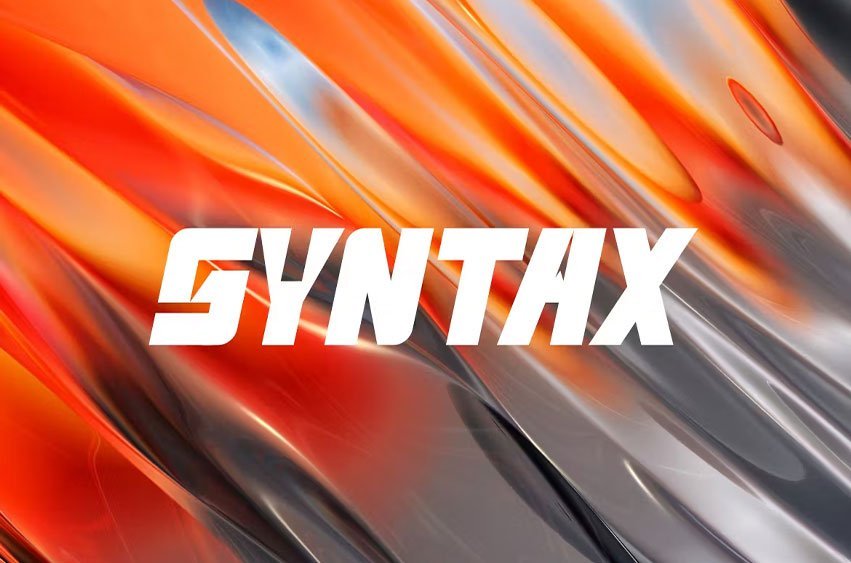
Venfro Pro Font is good for logo. This font is suitable for designs such as logos, advertisements and more. It reads as strong, confident, and dynamic and can add tons of assertive character to your designs.
Recommended using in
Ads, Branding, Social media and much more